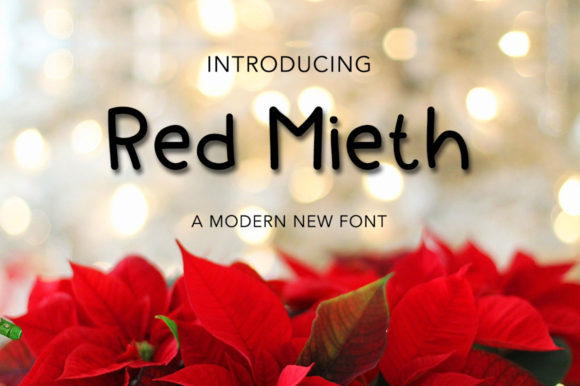
Red Mieth: A Handwritten Font for Editorial Design and Branding
The Visual Personality of Red Mieth
Red Mieth is a handwritten font that brings a touch of warmth and personality to any design. Its casual, flowing strokes give it a friendly and approachable feel, making it ideal for projects that require both style and readability. Whether you're crafting a blog post, designing a magazine cover, or creating a printable guide, Red Mieth adds a unique visual character that stands out without overwhelming the reader.
How Red Mieth Supports Editorial Design
As an editorial designer, I've found that fonts play a crucial role in shaping the tone and experience of a publication. Red Mieth excels in this regard, offering a versatile option that can be used across various editorial elements. Its elegant yet relaxed style makes it perfect for headers, pull quotes, and section openers where visual interest is key.
When working on a lifestyle blog, for instance, Red Mieth can elevate the header with its soft, handwritten flair while still maintaining clarity. This balance between style and readability ensures that the content remains engaging without sacrificing legibility.
Using Red Mieth in Different Editorial Contexts
Red Mieth is not limited to just one use case. It can be applied to a wide range of editorial formats, including:
- Blog Headers: Use Red Mieth for your blog title or main heading to create a memorable first impression.
- Magazine Covers: The font's expressive nature makes it ideal for cover text that needs to catch attention at a glance.
- Ebook Titles: Red Mieth adds a personal touch to ebook titles, helping to establish brand identity and set the tone for the content.
- Newsletter Graphics: Incorporate Red Mieth into pull quotes or callout boxes to highlight important information in a visually appealing way.
- Printable Guides: Whether it's a recipe book or a self-help workbook, Red Mieth can enhance the overall aesthetic while keeping the text easy to read.
- Content Branding: Use Red Mieth consistently across your branding materials to build recognition and reinforce your brand’s personality.
Readability and Practical Considerations
While Red Mieth is visually striking, it's important to consider how it performs in different contexts. For longer reading sections, it's best paired with a more readable serif or sans serif font to ensure comfort for the reader. However, when used in headlines or accents, Red Mieth shines by drawing the eye and adding a sense of charm.
For screen reading, it's recommended to use Red Mieth in smaller sizes and avoid overusing it in body copy. When exporting to PDF or printing, make sure to test the font across various devices and paper types to maintain its intended appearance.
Font Pairing for Maximum Impact
Pairing Red Mieth with complementary fonts can significantly enhance the visual hierarchy and overall design. For example, pairing it with a clean sans serif font like Montserrat or a classic serif font like Georgia can create a balanced look that works well for both display and body text.
When designing for digital platforms, consider using a sans serif font for navigation menus or captions to ensure consistency and usability. On the other hand, for print layouts, a serif font can add depth and professionalism to the overall design.
Conclusion
Red Mieth is more than just a font—it's a design tool that can elevate your editorial work with its unique personality and versatility. From blog headers to printable guides, it offers a range of applications that support both aesthetics and functionality. By understanding how to pair it effectively and use it appropriately, you can create content that resonates with your audience while maintaining a strong visual identity.